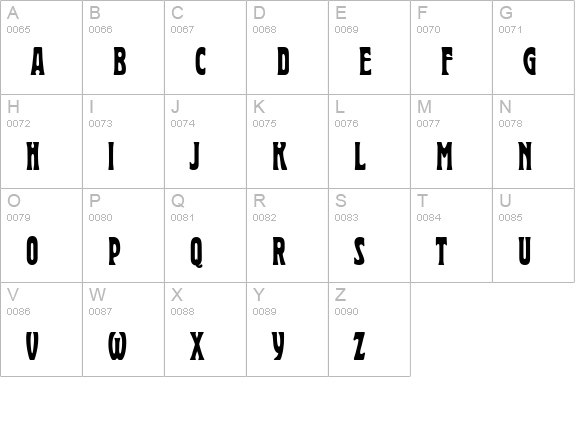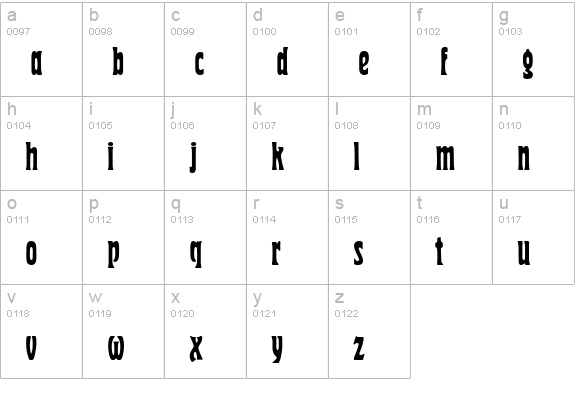
Herman-Regular is the standard, neutral variant in the Herman typeface family \xE2\x80\x94 well suited to general body text, paragraphs, and standard typographic work.
Herman-Regular font is a versatile and modern typeface that exudes elegance and sophistication. With its clean lines and stylish curves, this font is perfect for a wide range of design projects, from branding to editorial design. The sleek and timeless design of Herman-Regular makes it a go-to choice for designers looking to add a touch of class to their work. What's even better is that Herman-Regular font is available for free download at FontsMarket.com. This means that you can easily access this premium font without having to break the bank. So whether you're a professional designer or a hobbyist looking to elevate your projects, Herman-Regular font is the perfect choice for adding a touch of sophistication and style. Download it today and see the difference it can make in your designs.